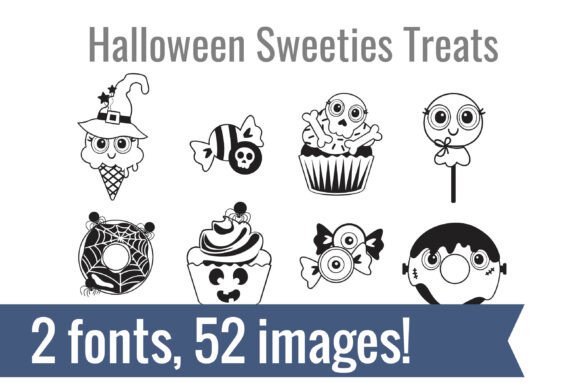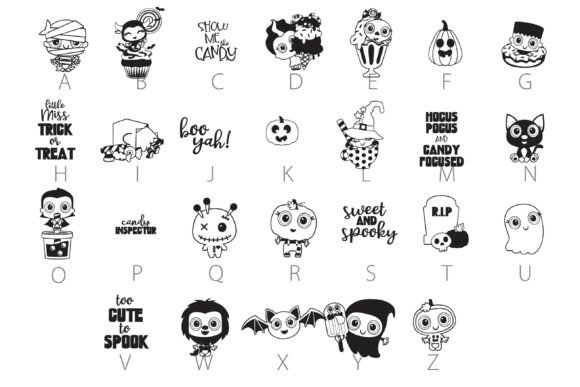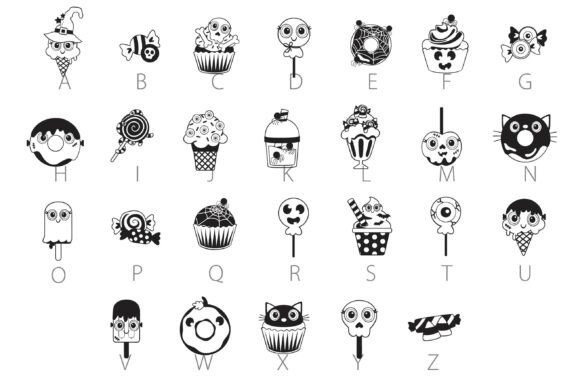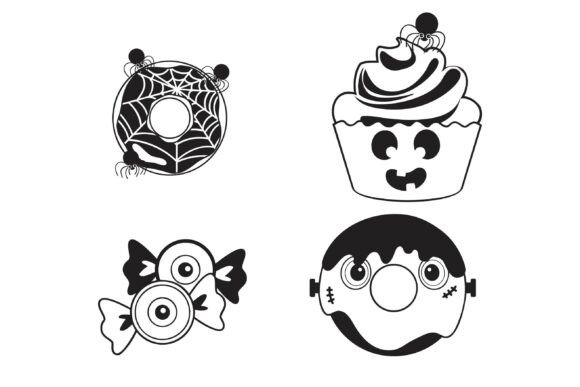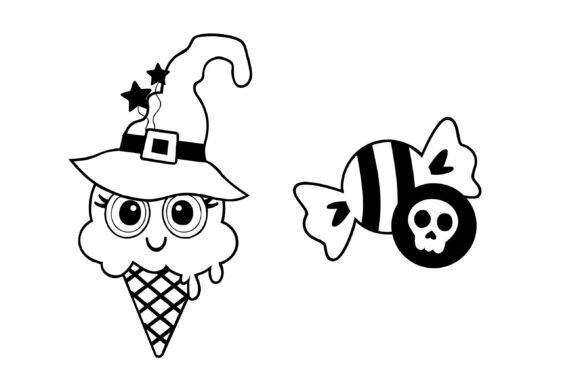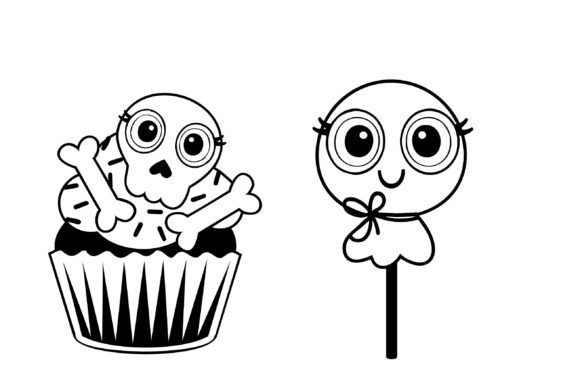
Unlock Endless Creativity with Halloween Sweeties Font
Are you tired of spending hours searching for the perfect icons and graphics for your Halloween-themed designs? Look no further! Introducing the Halloween Sweeties Font, a bundle of two perfectly coordinated dingbat fonts that will unlock endless creativity for designers and crafters alike. These fonts feature the cutest monsters and spooky elements combined with the tastiest treats, providing a comprehensive set of high-quality graphics to elevate your designs.
What is a Dingbat Font?
For those who may be new to dingbat fonts, let’s take a quick look at what they are and how they work. A dingbat font is a type of font that features graphical symbols, icons, or images instead of traditional letters. These fonts can be used to add visual interest and personality to your designs, making them perfect for a wide range of applications, from holiday cards and invitations to vinyl cutting and paper crafts.
The Power of Halloween Sweeties Font
The Halloween Sweeties Font bundle includes two dingbat fonts, each featuring dozens of cohesive, scalable designs that can be easily accessed directly from your cutting or design software. With these fonts, you can create stunning designs for various projects, including:
• Holiday cards and invitations
• Vinyl cutting and paper crafts
• Planners and journals
Key Features of Halloween Sweeties Font
The Halloween Sweeties Font bundle offers a range of exciting features that make it an essential tool for designers and crafters. Some of the key benefits include:
• Instant access to designs: With the Halloween Sweeties Font, you can access a wide range of designs directly from your cutting or design software, saving you time and effort.
• Scalable designs: The fonts feature scalable designs that can be resized without losing any quality, making them perfect for a wide range of applications.
• Cohesive graphics: The two fonts in the bundle are perfectly coordinated, ensuring that your designs look cohesive and professional.
Applications of Halloween Sweeties Font
The Halloween Sweeties Font bundle is versatile and can be used for a wide range of applications, including:
• Halloween-themed designs: Create spooky and fun designs for Halloween, including invitations, cards, and decorations.
• Paper crafts: Use the fonts to create intricate designs and patterns for paper crafts, such as card making and scrapbooking.
• Vinyl cutting: The fonts are perfect for vinyl cutting, allowing you to create custom signs, decals, and more.
• Digital designs: Use the fonts to create stunning digital designs, including social media graphics, blog posts, and more.
Tips and Tricks for Using Halloween Sweeties Font
To get the most out of the Halloween Sweeties Font, here are a few tips and tricks to keep in mind:
• Experiment with different sizes and colors: Don’t be afraid to experiment with different sizes and colors to add visual interest to your designs.
• Combine with other fonts: Combine the Halloween Sweeties Font with other fonts to create unique and eye-catching designs.
• Use for non-Halloween designs: While the fonts are perfect for Halloween-themed designs, they can also be used for other projects, such as birthday parties and baby showers.
The Halloween Sweeties Font bundle is a must-have for designers and crafters looking to unlock endless creativity and take their designs to the next level. With its comprehensive set of high-quality graphics, ease of use, and versatility, this font bundle is perfect for a wide range of applications. Whether you’re creating Halloween-themed designs, paper crafts, or digital graphics, the Halloween Sweeties Font is sure to become a go-to tool in your design arsenal.